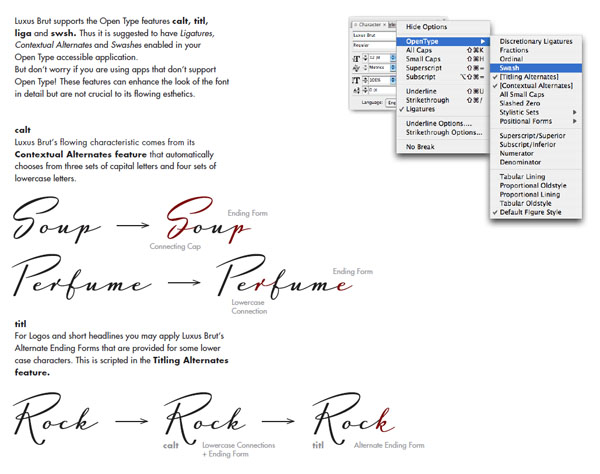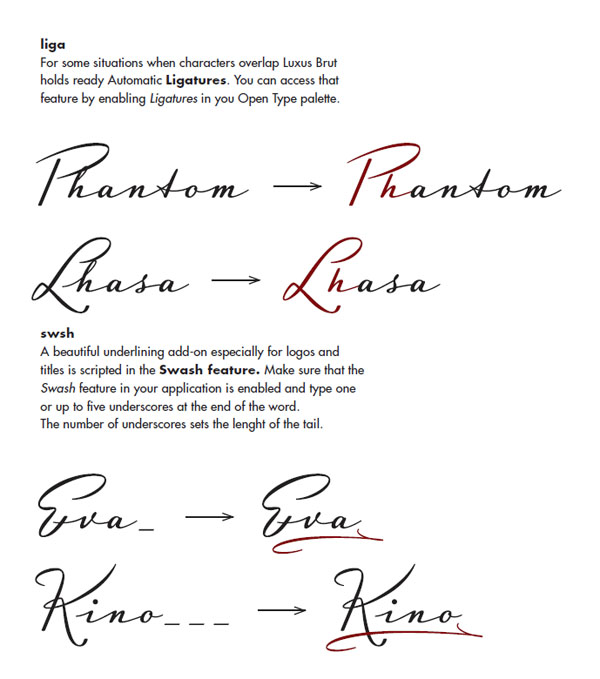
Luxus Brut – Script Typeface.
Luxus Brut is inspired by hand lettered signage fonts of the 1950s. The Austrian designer Roland Hörmann created this beautiful vintage script typeface in 2009 (Font Publisher: Phospho Type Foundry from Vienna, Austria). Luxus Brut has distinctive large capital letters. The wide spacing letters and a low x-height make this font a perfect choice for retro poster designs, stylish magazine headlines, vintage logotypes, and any design that requires a touch of luxury, fashion or sensuality. Luxus Brut has a lot of special Open Type Feautures such as alternate endings, underlining swashes and a contextual alternate feature. OpenType-savvy applications help you to exploit the full potential of these OpenType Features. Luxus Brut’s 830 glyphs in total support Western and Eastern European character sets including Baltic, Romanian, and Turkish.